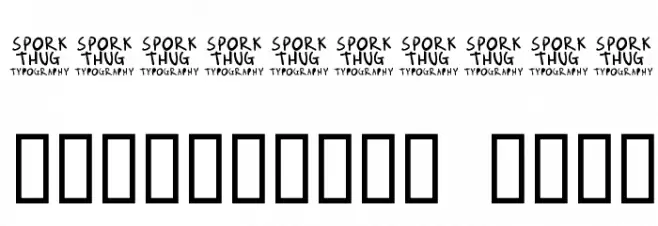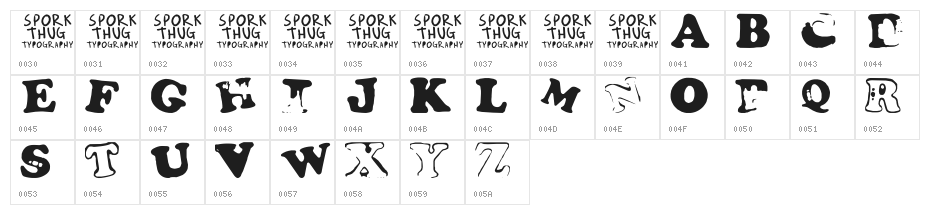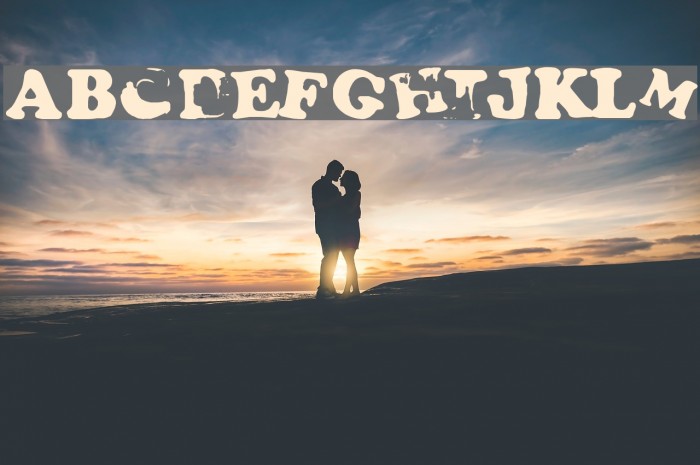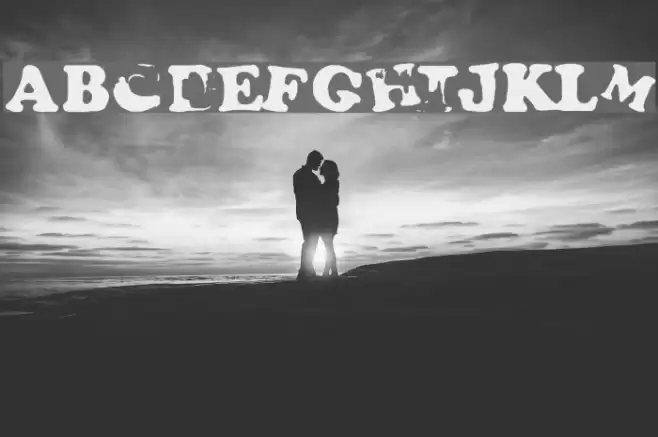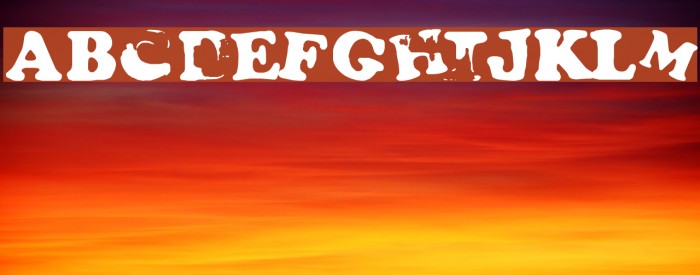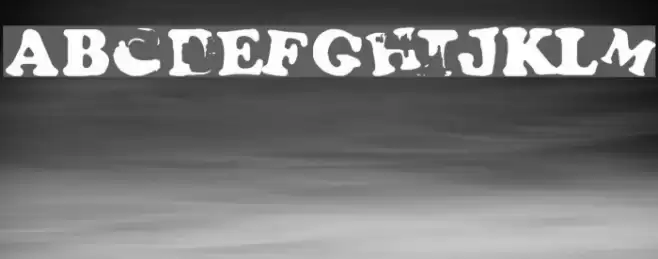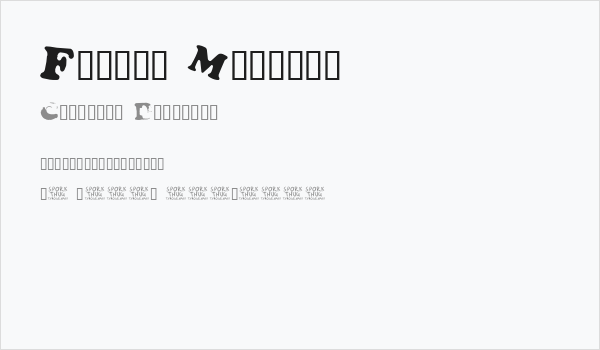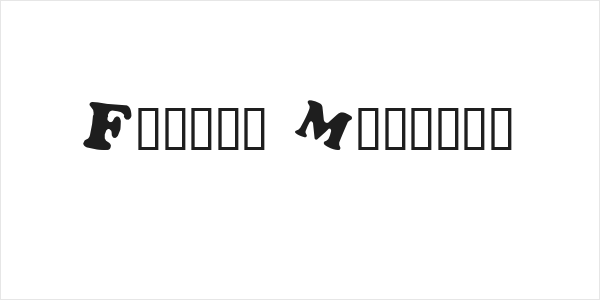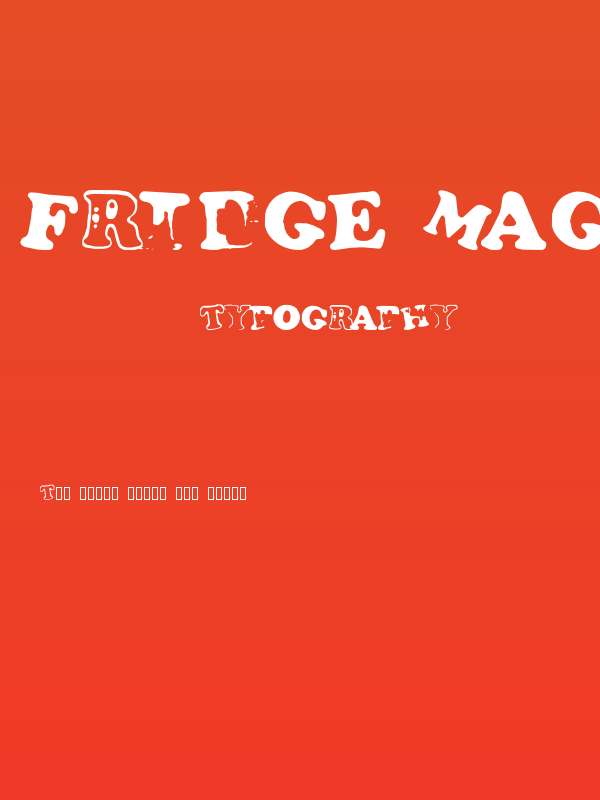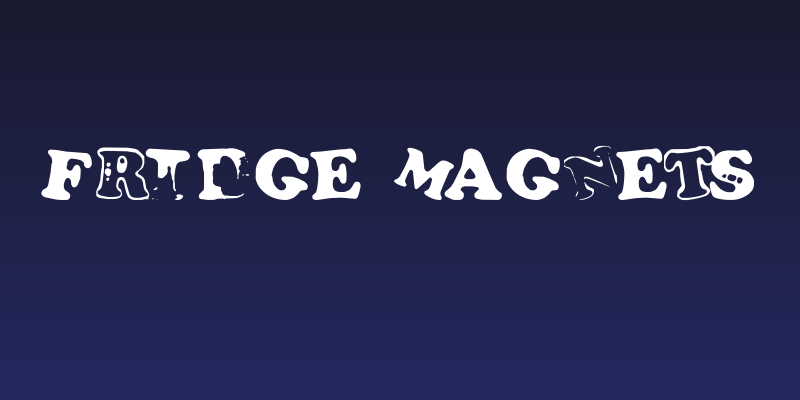
Fridge Magnets Font
Fridge Magnets Description
This font features a playful and whimsical design, characterized by its bold and irregular shapes. The letters have a hand-drawn, artistic feel with varying thicknesses and quirky details that give it a unique personality. The uppercase letters are particularly bold and eye-catching, while the lowercase letters maintain the same playful style. The font's uneven edges and dynamic forms make it ideal for creative projects that require a fun and informal touch. Its distinctive style is perfect for capturing attention and adding a lively element to any design.
| Use Case | Headlines, Posters, Creative Branding |
| Proposed Projects | Ideal for children's book covers, playful posters, creative branding, and any project that requires a fun and informal touch. |